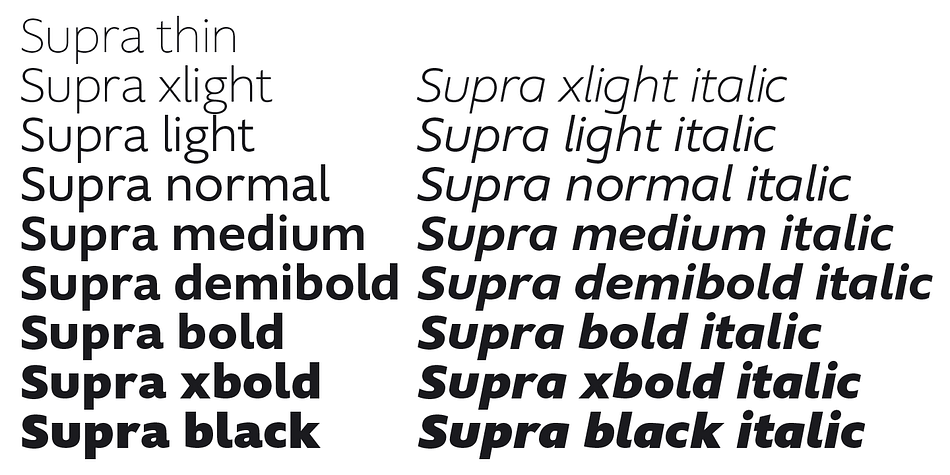
Supra
Supra is a sans serif font family. This typeface has seventeen styles and was published by Wiescher-Design.
»Supra« – designed by Gert Wiescher in 2012/13 – is a new sans typeface family of eight weights with matching italics.
Supra is influenced by current and past sans typefaces, but has a completely new look.
The pleasant flow and warm touch combined with great legibility makes Supra unique.
The light and normal weights and the dominant x-height with its high ascenders make for easy reading of long copy.
The heavy and x-light weights are great for elegant headlines.
Supra is an OpenType family for professional typography with an extended character set of over 700 glyphs.
It supports more than 40 Central- and Eastern-European as well as many Western languages.
Ligatures, different figures, fractions, currency symbols and smallcaps can be found in all cuts.
»Supra« – designed by Gert Wiescher in 2012/13 – is a new sans typeface family of eight weights with matching italics. Supra is influenced by current and past sans typefaces, but has a completely new look. The pleasant flow and warm touch combined with great legibility makes Supra unique.
The light and normal weights and the dominant x-height with its high ascenders make for easy reading of long copy. The heavy and x-light weights are great for elegant headlines.
Supra is an OpenType family for professional typography with an extended character set of over 700 glyphs. It supports more than 40 Central- and Eastern-European as well as many Western languages. Ligatures, different figures, fractions, currency symbols and smallcaps can be found in all cuts. with each other.